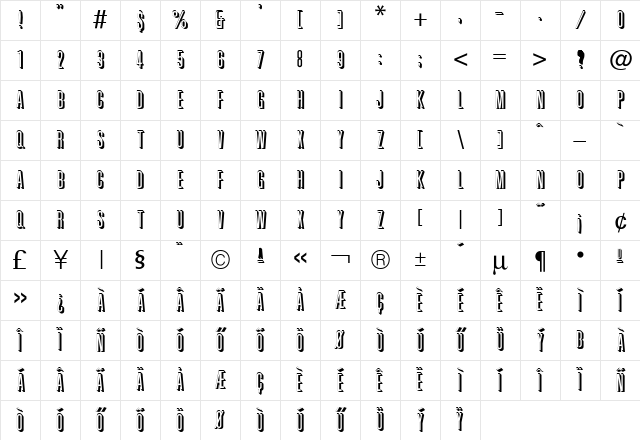
Griffon Regular
Griffon Regular Family
Complete Griffon Regular glyph index. Displaying only characters natively supported by Griffon Regular font.
Design Context for Griffon
Griffon is a composed and adaptable typeface that performs quietly and consistently across a wide range of design contexts.